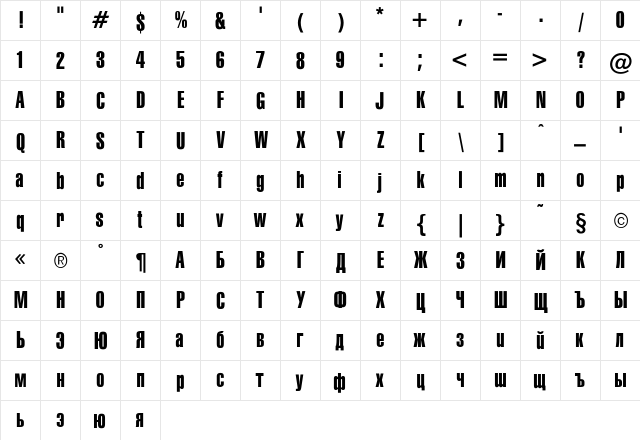
Swiss_Extra_Compressed-Norma Regular Font Preview
Swiss_Extra_Compressed-Norma Regular
Design Context for Swiss_Extra_Compressed-Norma Typeface
Swiss_Extra_Compressed-Norma offers clean, dependable letterforms without strong stylistic allegiance, making it a practical choice for designers who need flexibility.